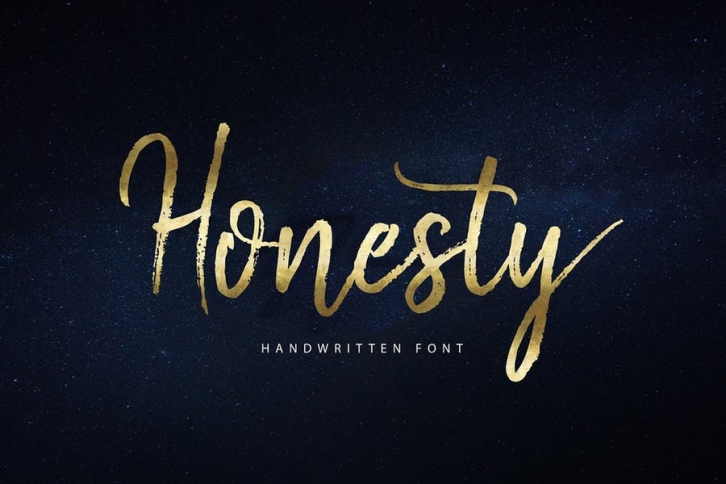
Honesty Script is a new fresh & natural script font with a handwritten style. This font comes to give a natural feel for the designer in working on various projects, So Perfect and beautiful on invitation like greeting cards, branding materials, business cards, quotes, posters, Logos, Greeting Cards, Wedding Stationery, and more!
Honesty Script comes with 227 glyphs totally. The alternative characters were divided into Several Open Type features such as Swash, Stylistic Sets, Stylistic Alternates, Contextual Alternates, and ligature. The Open Type features can be accessed by using Open Type savvy programs such as Adobe Illustrator, Adobe InDesign, Adobe Photoshop Corel Draw X version, And Microsoft Word. And this has given PUA Unicode Font (specially coded fonts). so that all the alternate characters Easily can be accessed in full by a craftsman or designer